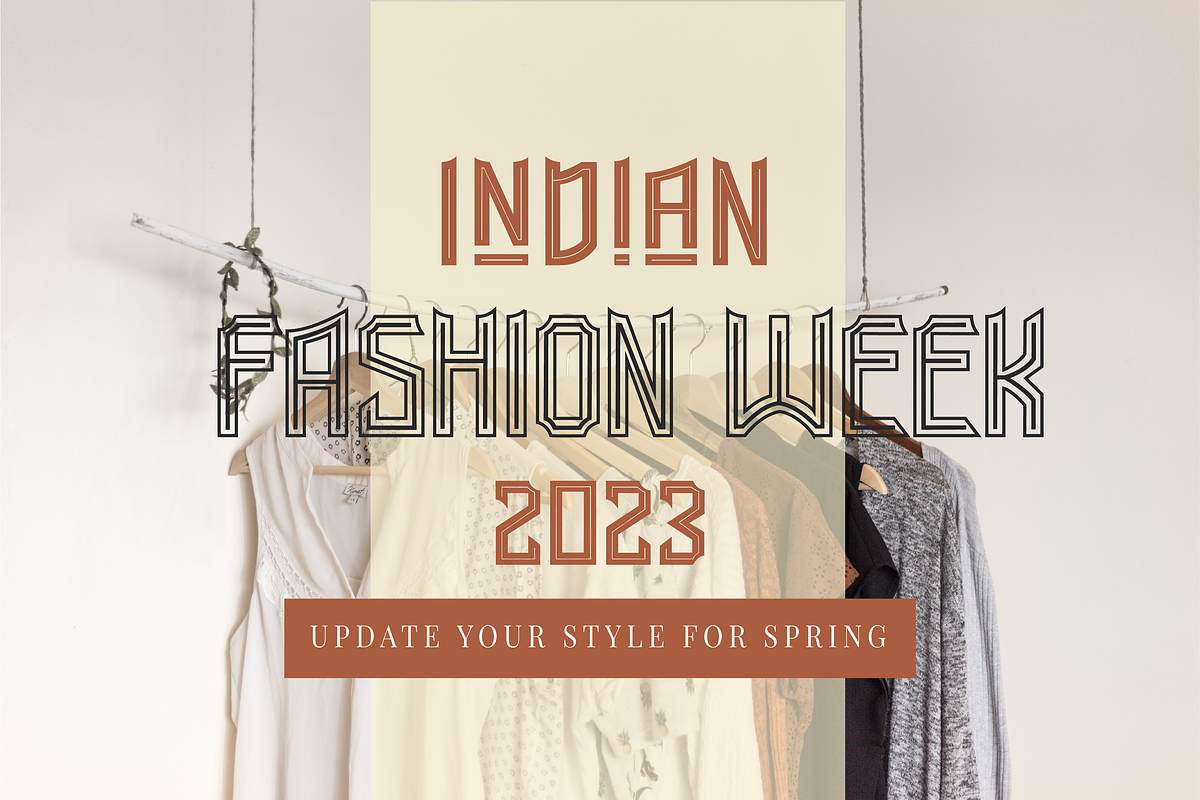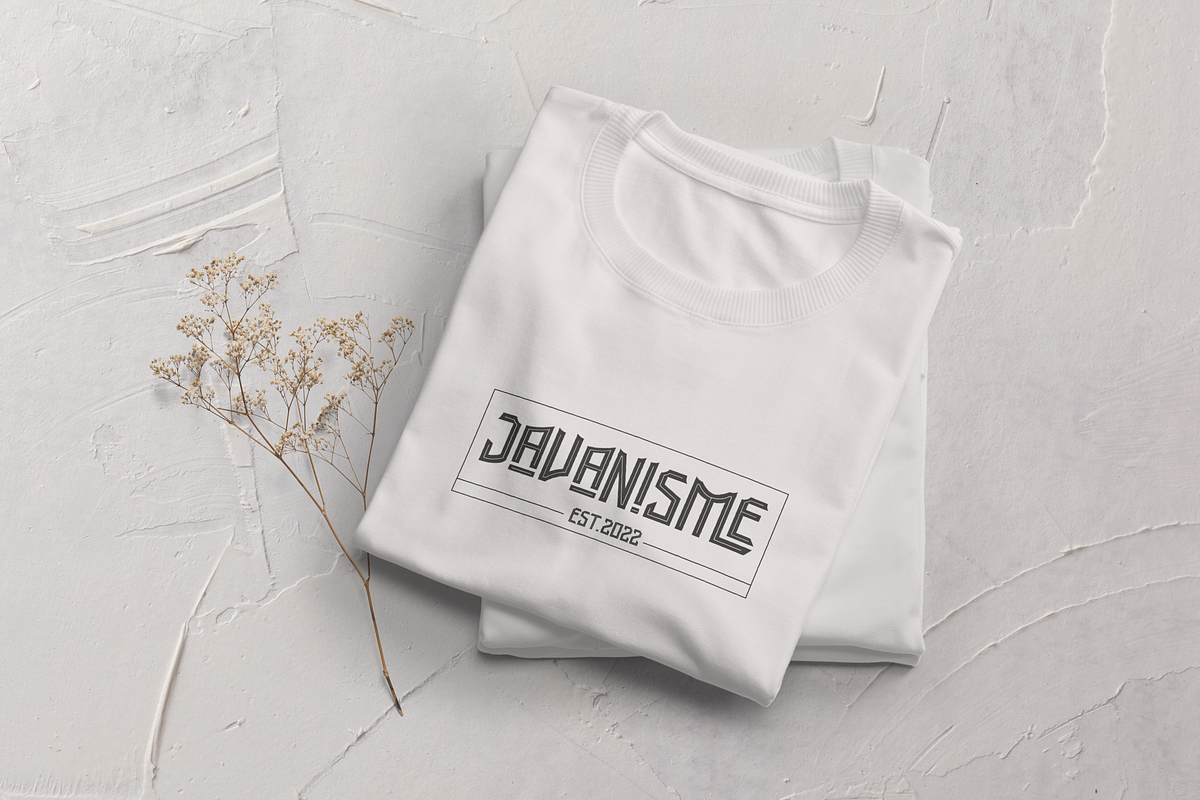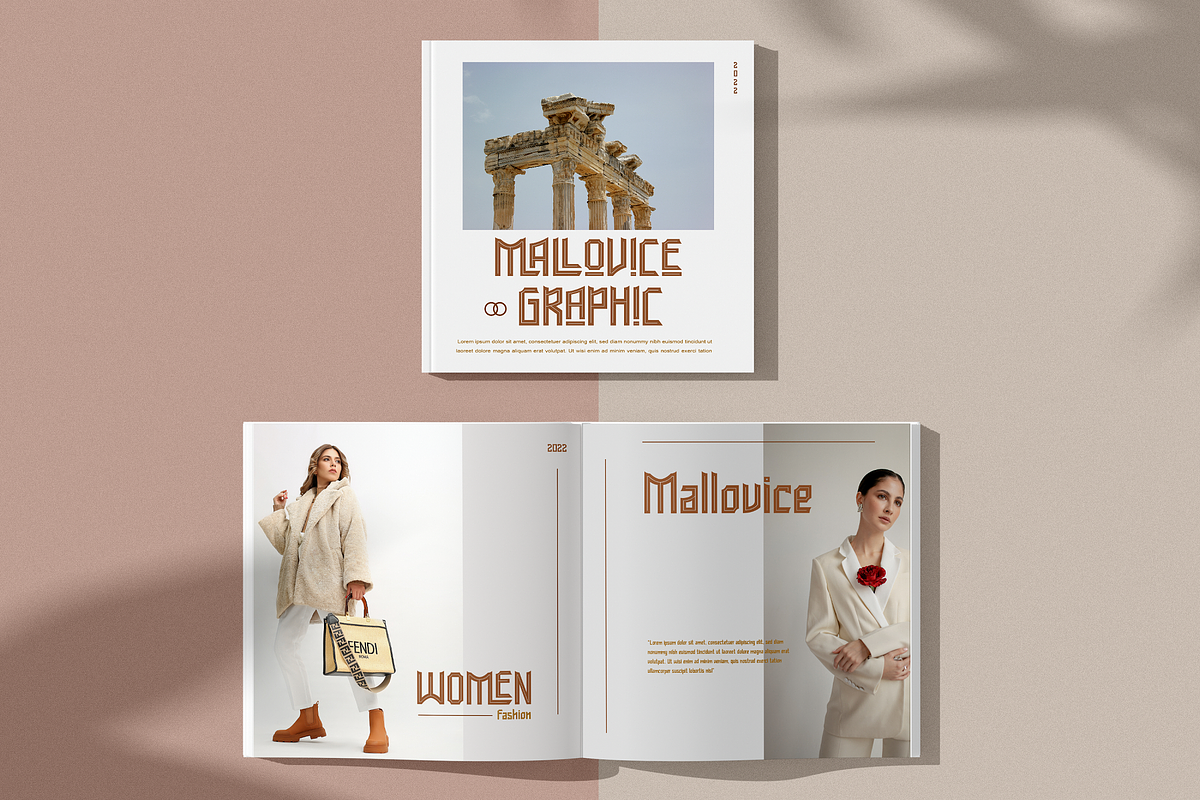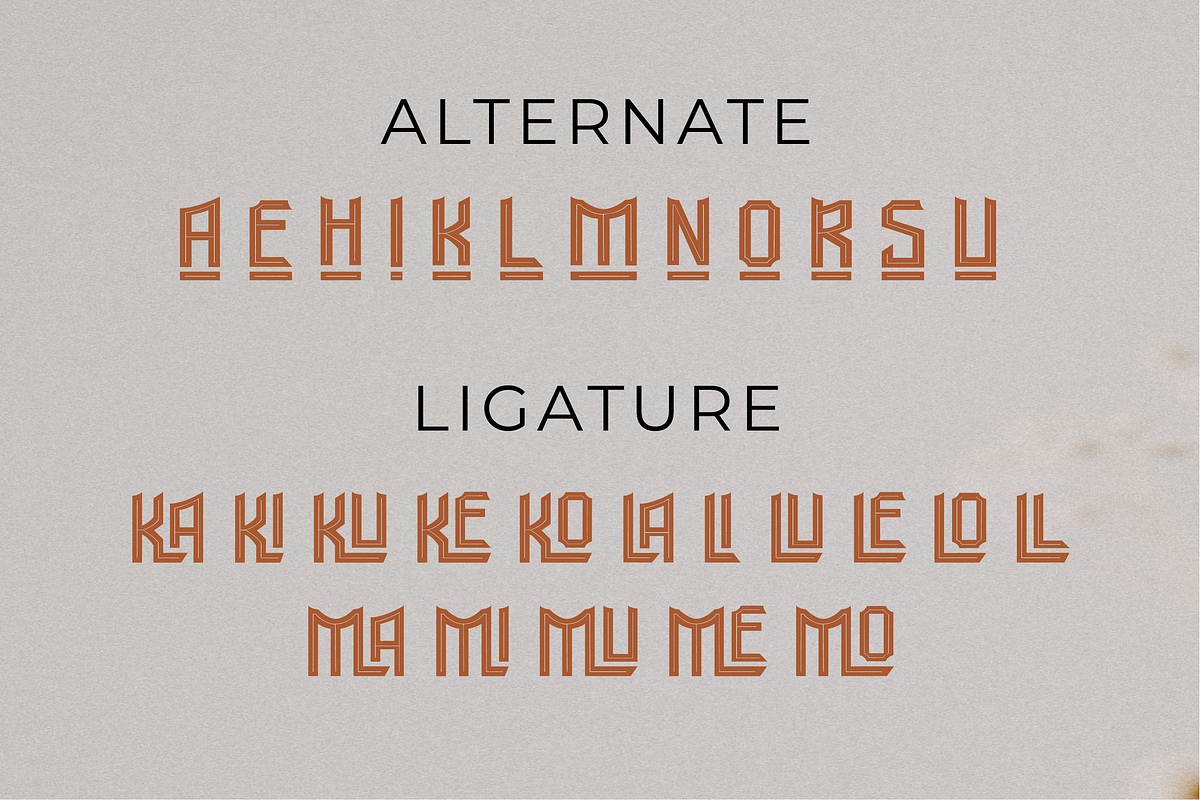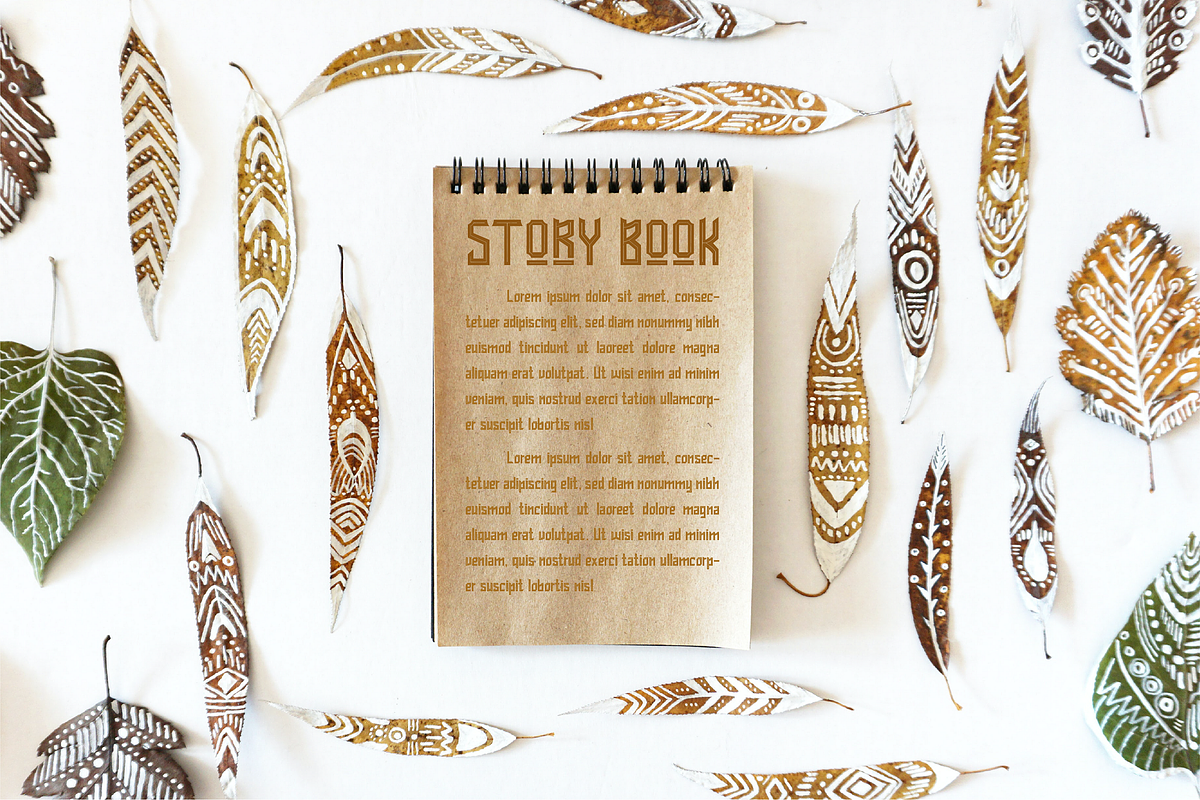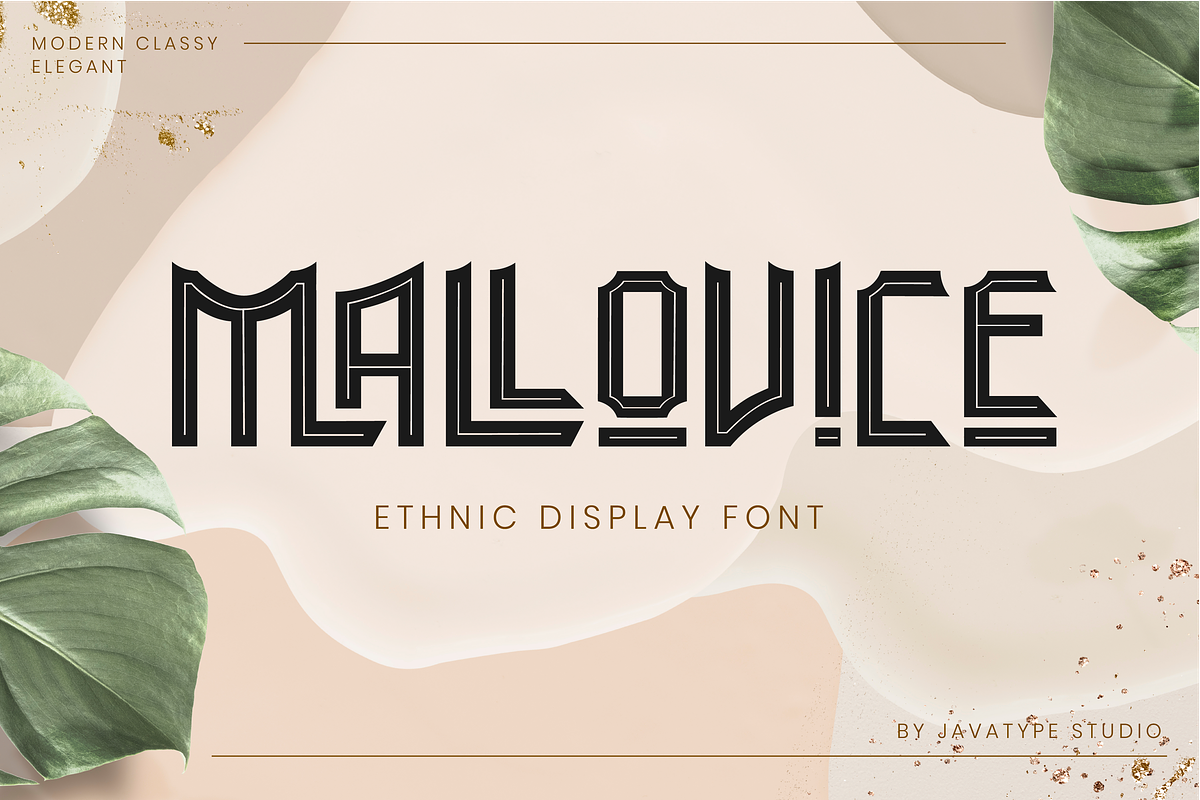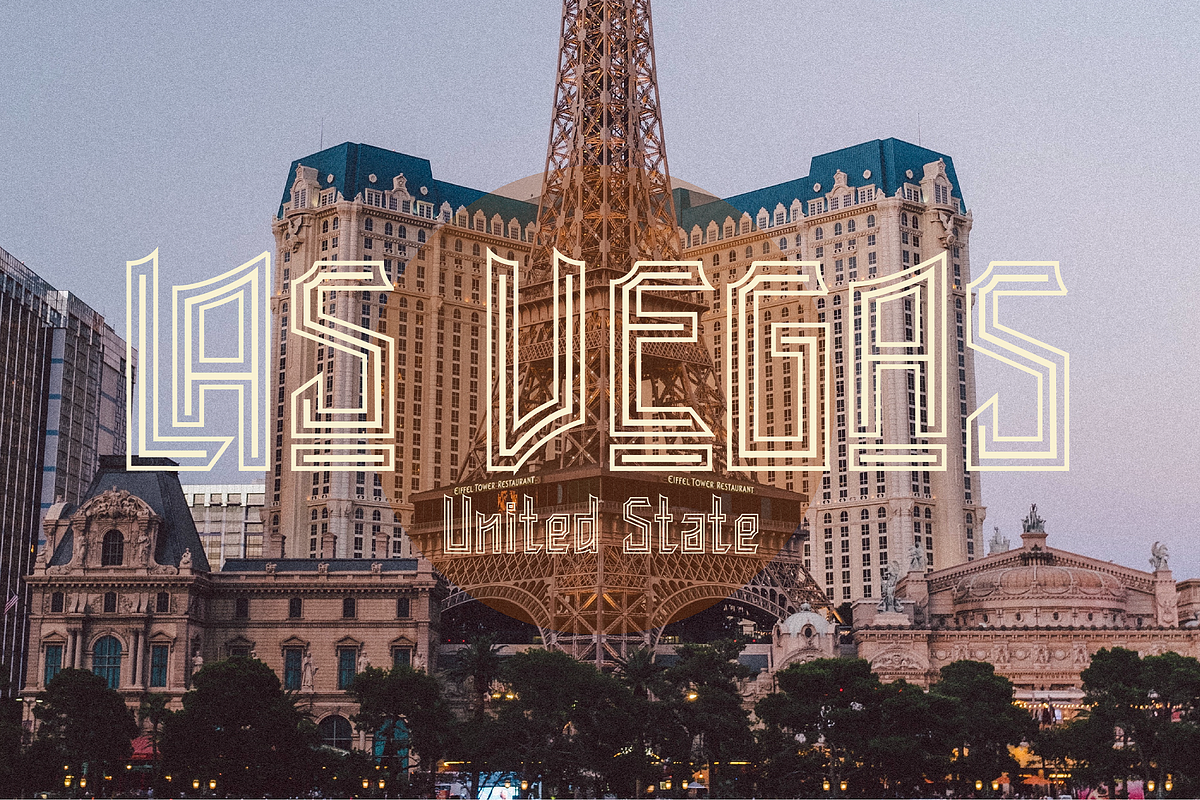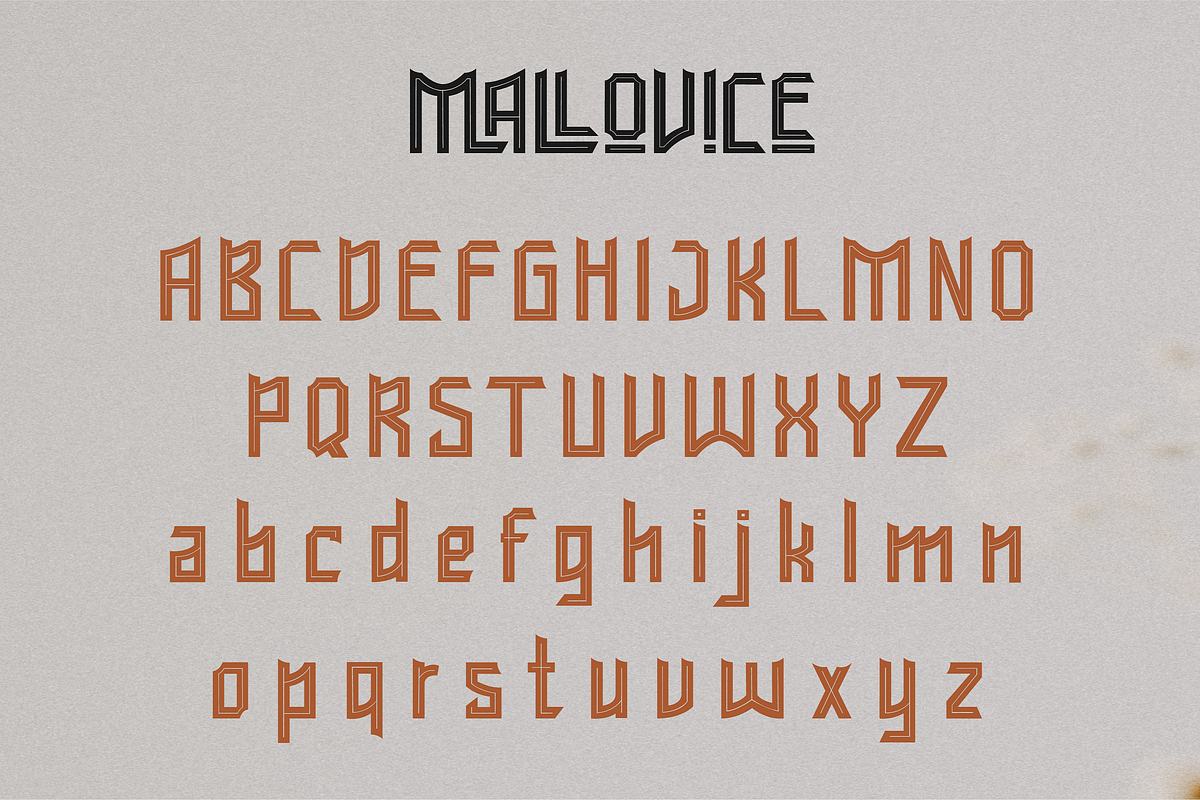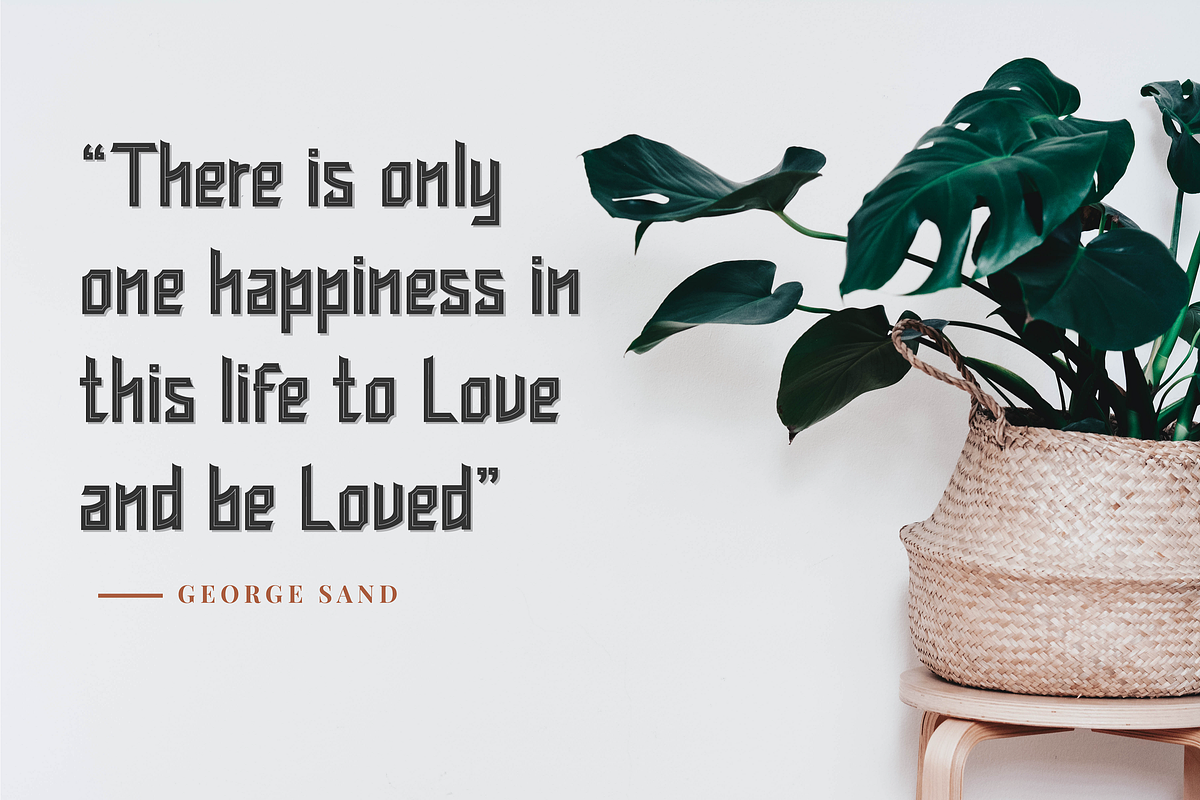
Mallovice a ethnic display font
Mallovice a ethnic display font is a font made with a unique, strong ethnic character so that users can feel different characteristics
Mallovice would be perfect for photography, watermark, social media posts, quotes, cover book, tshirt, branding, logos & branding, invitation, product designs, label, stationery, product packaging, special events or anything that need handwriting taste.
- Ligature and Stylish Set